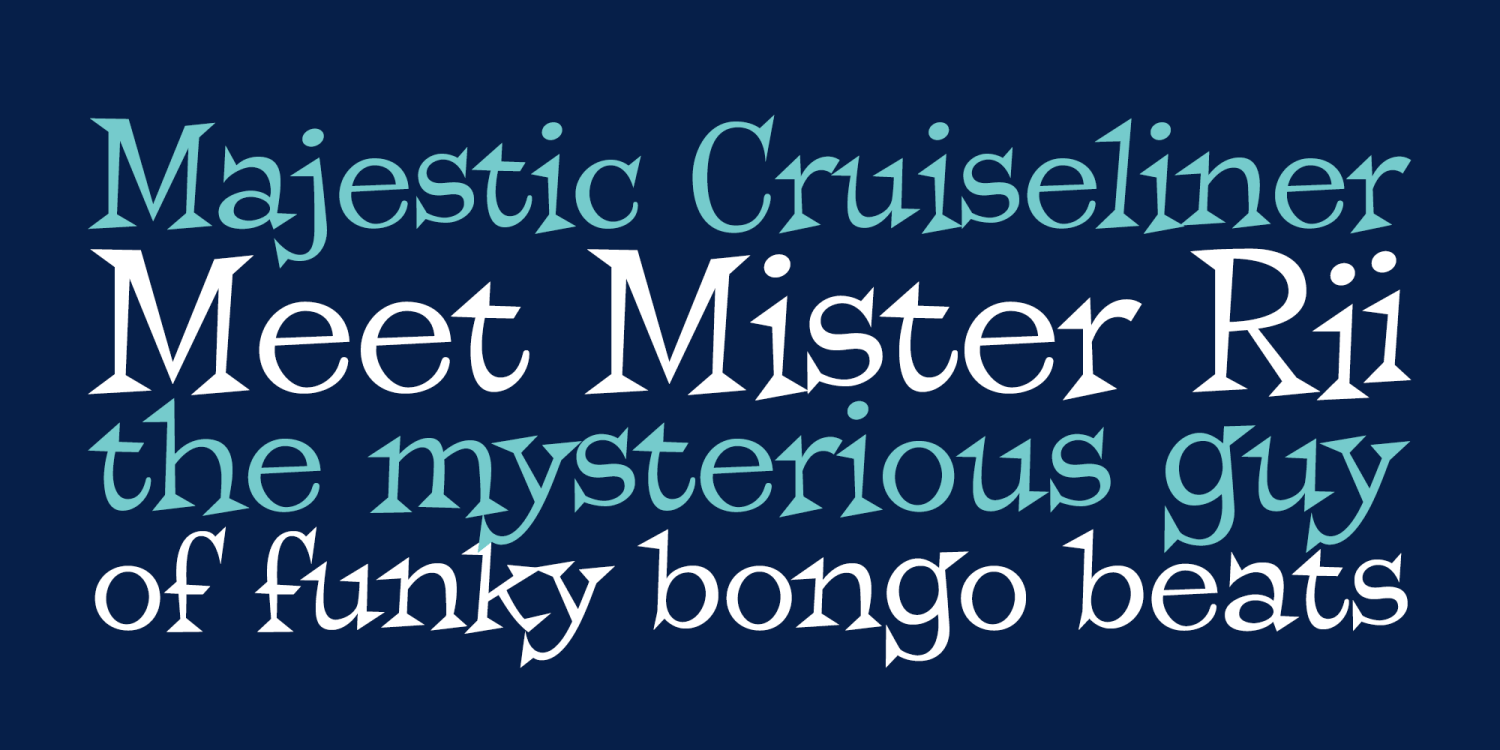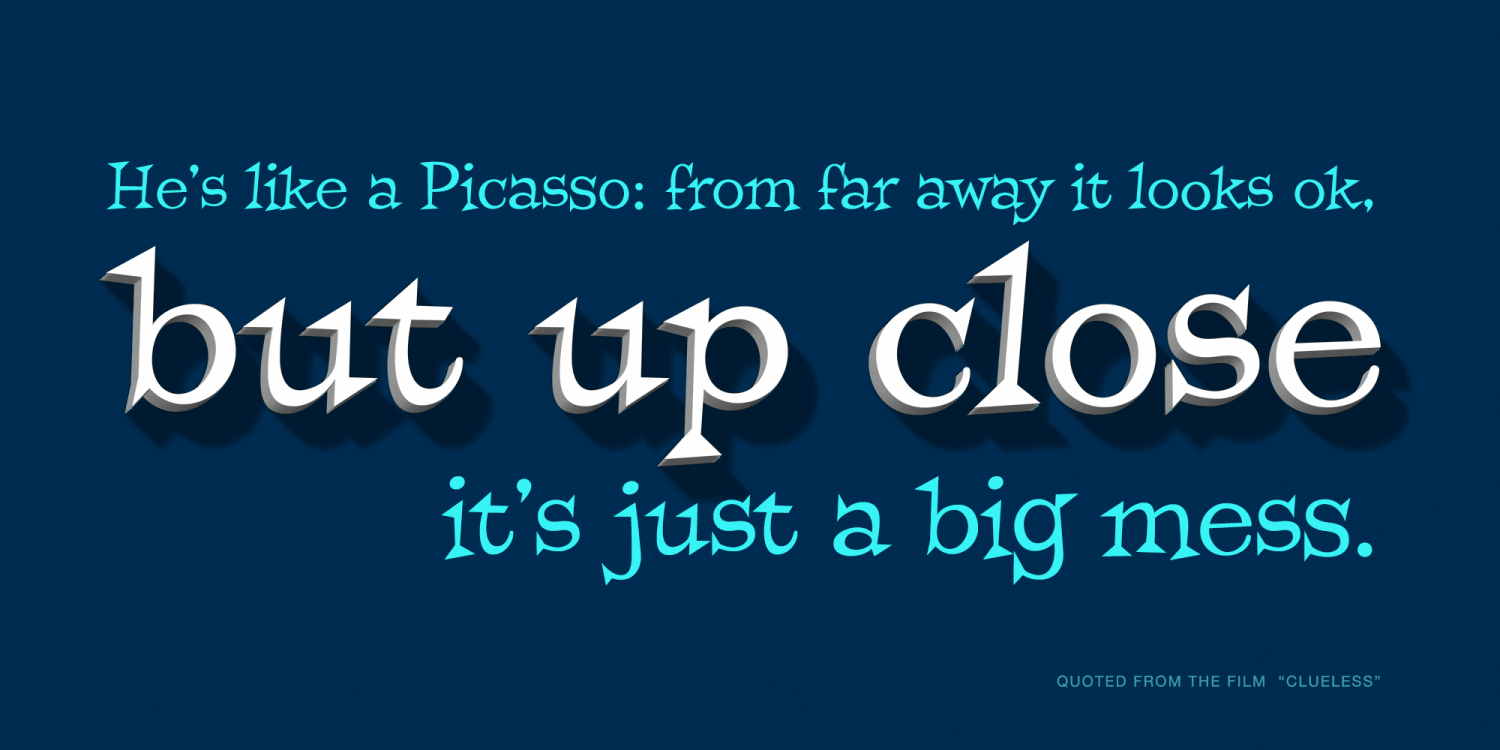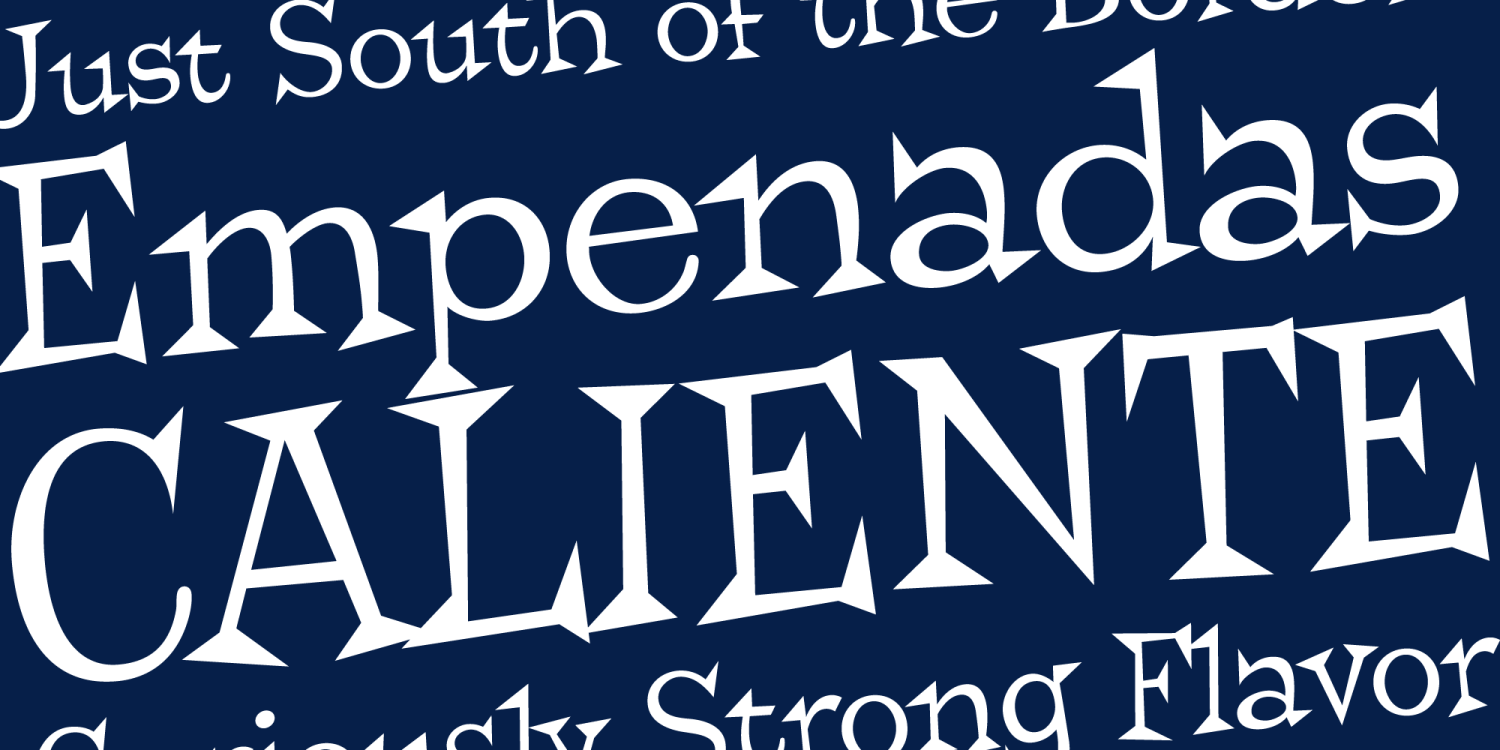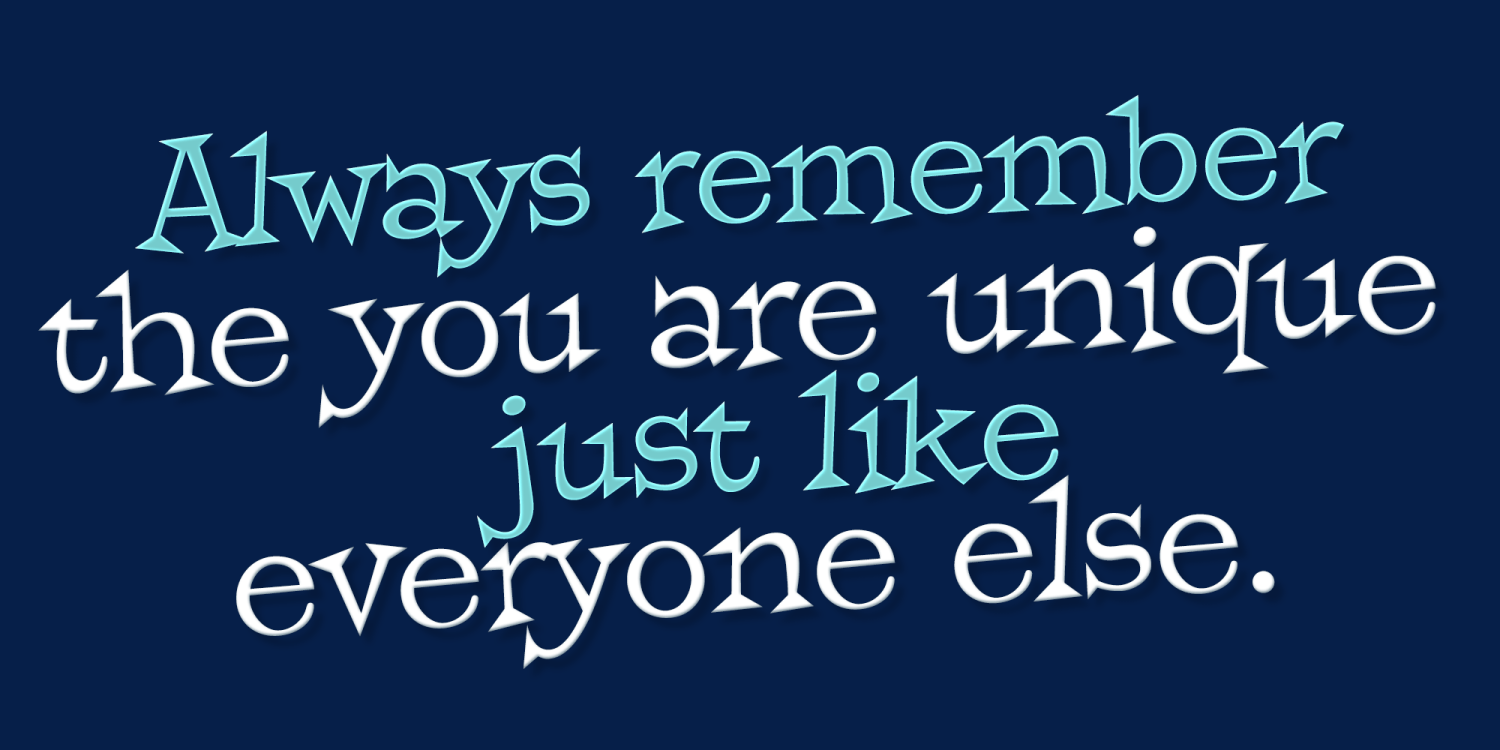
Mister Rii
A spunktastic offbeat latin typeface inspired by numerous Caribbean travel brochures & retro album covers from the mid 50's. This font really dances off the page!
Opentype features include Stylistic Alternates that change the scale of monetary symbols, and Contextual Alternates that modifies the second letter when typing double letters in lowercase.